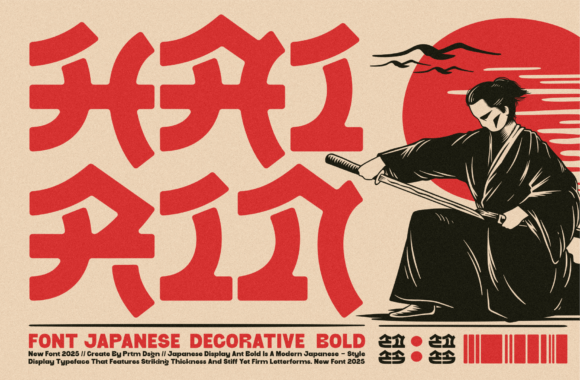
Introduction to Hairin Font
This font is a bold and decorative typeface, inspired by traditional Japanese aesthetics and bold typographic constructions.
Its characters adopt a geometric structure reminiscent of Japanese calligraphy, but adapted into modern Latin letterforms, offering a balance between cultural references and contemporary design Its thick, square outline ensures high legibility at large sizes, making it particularly effective for posters, headlines, and branding.
Key Features of Hairin Font